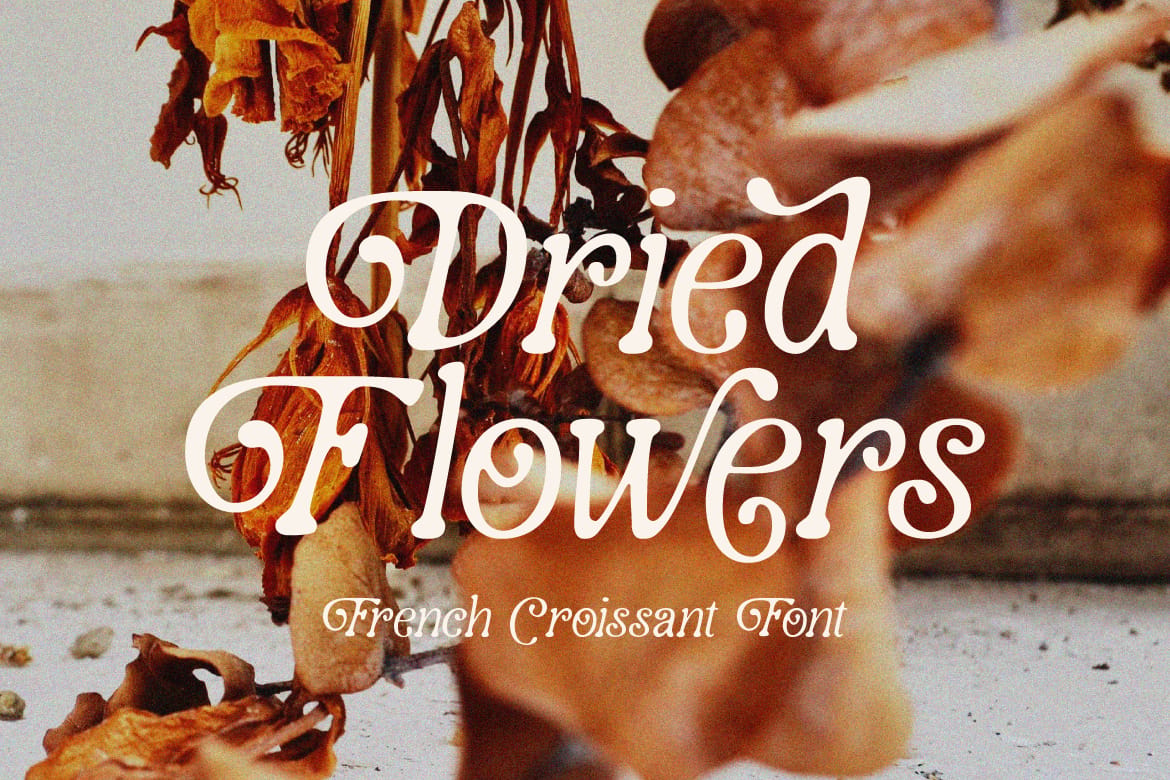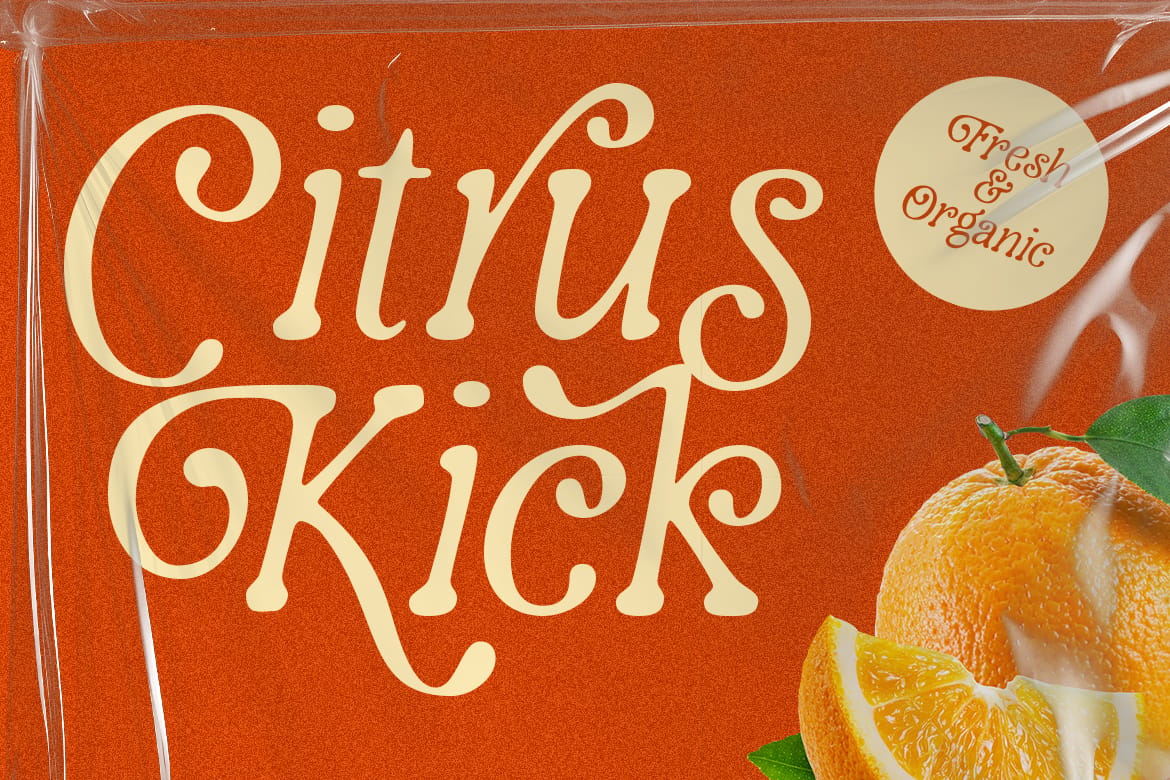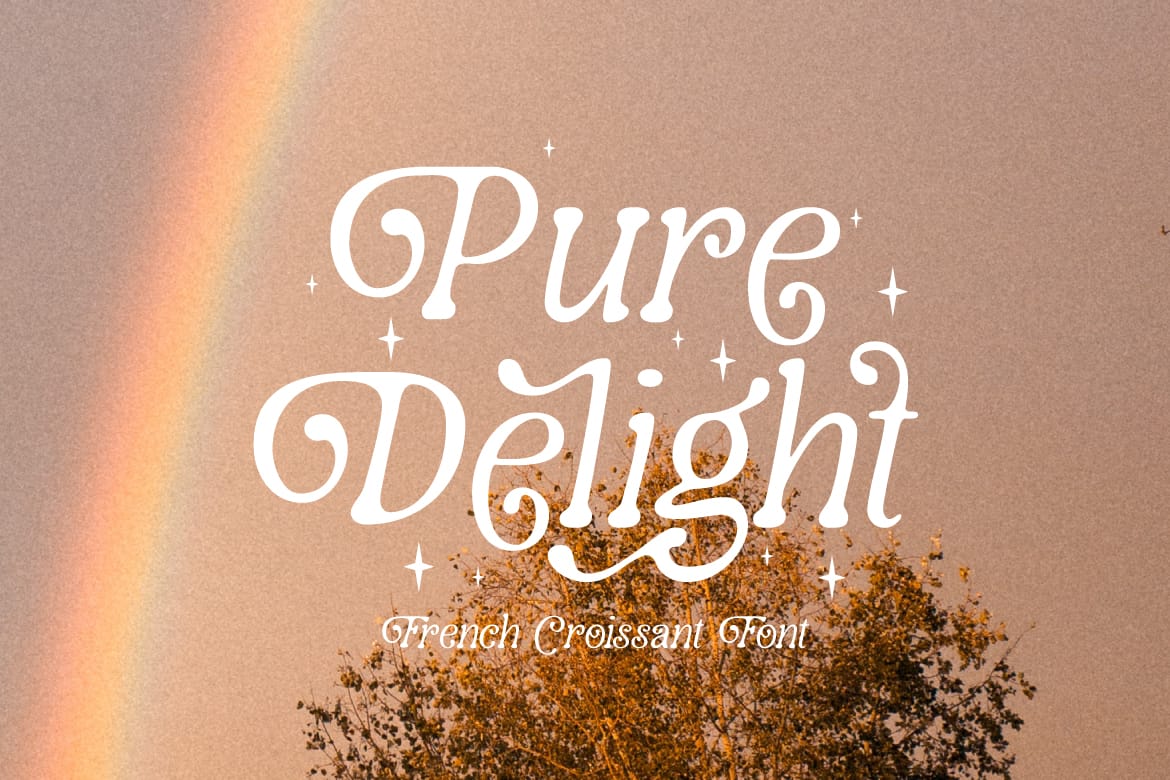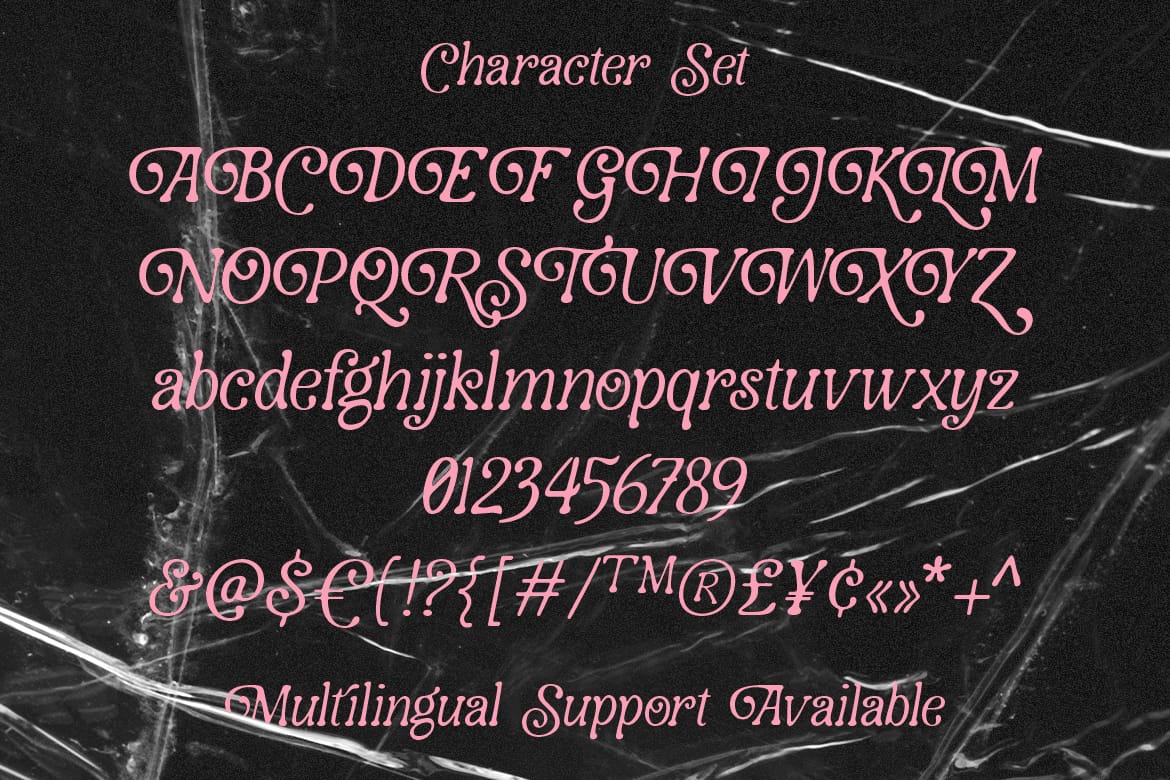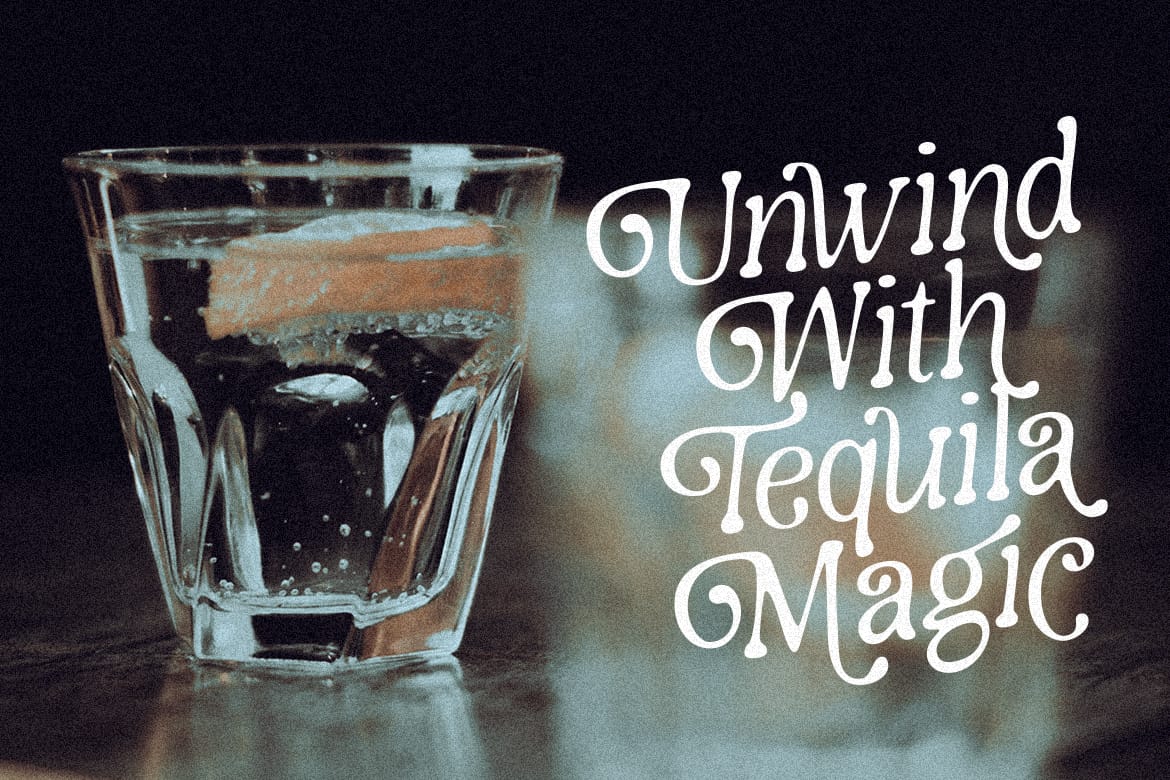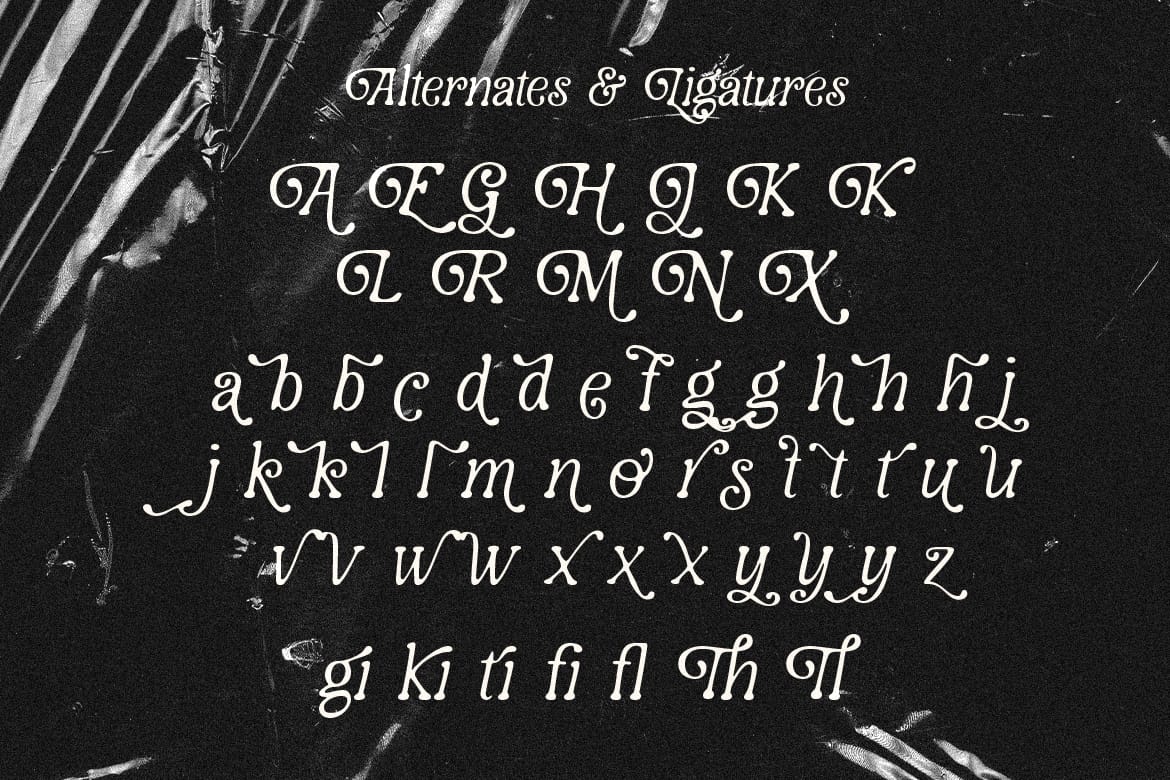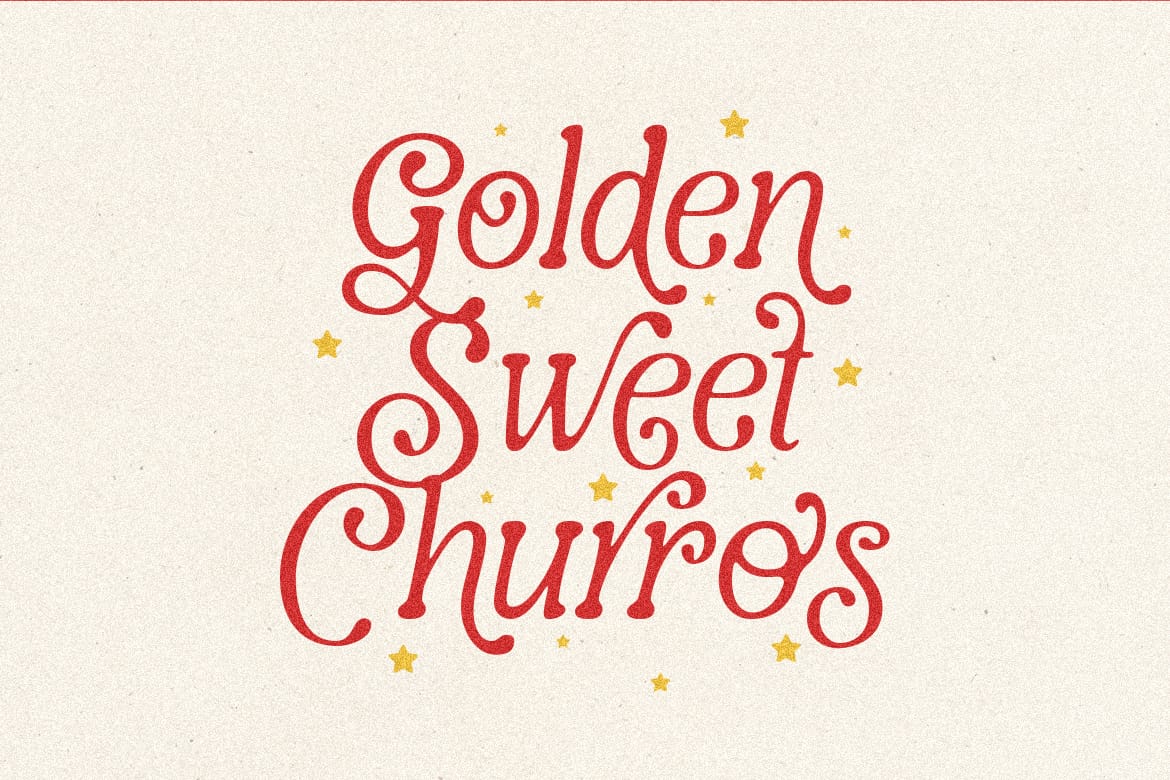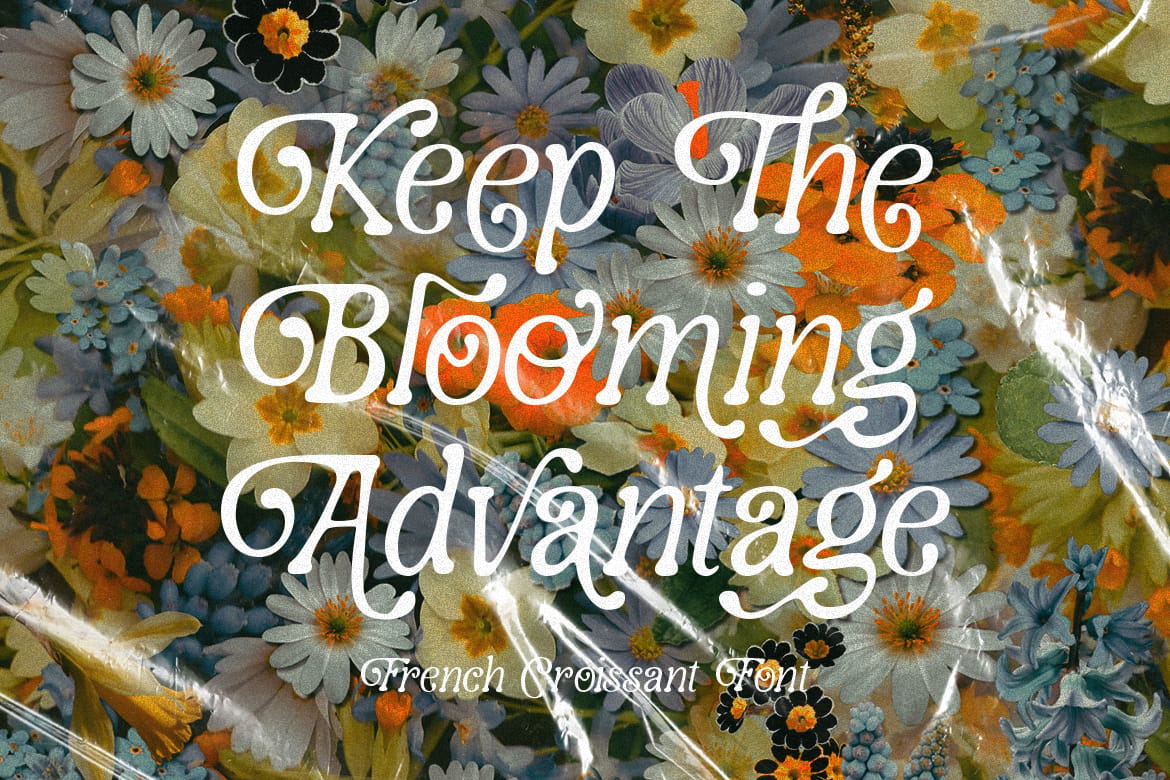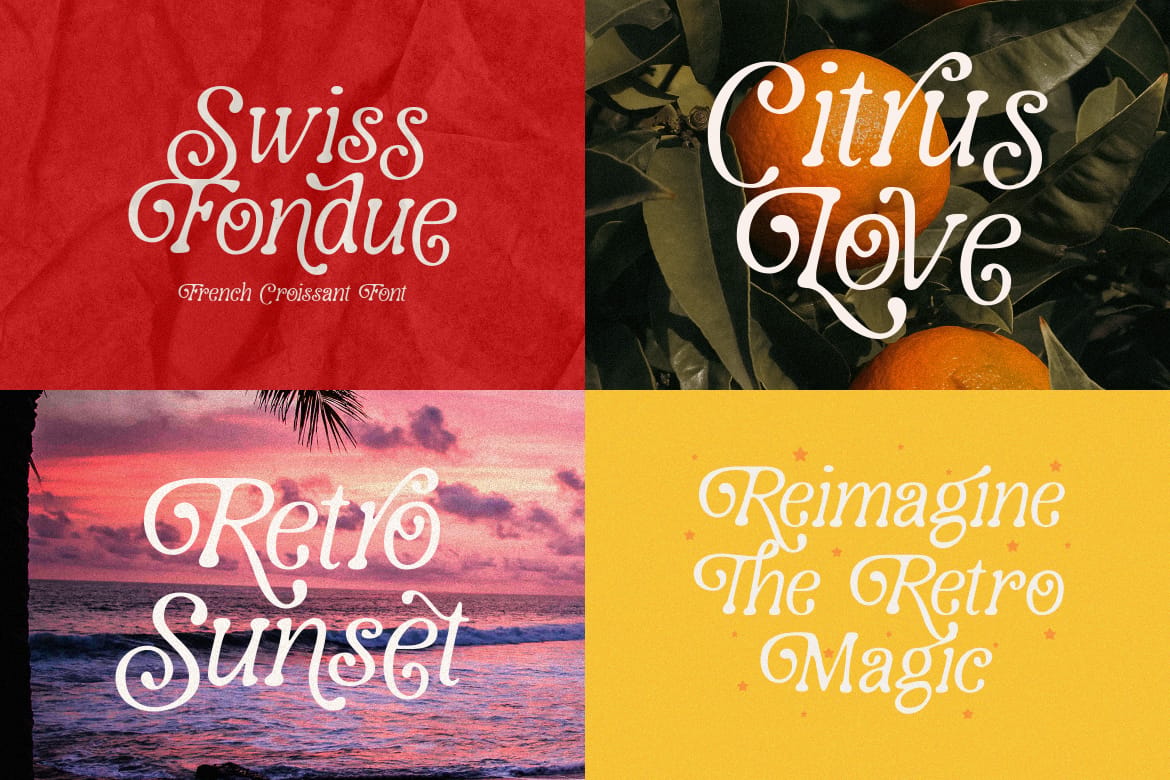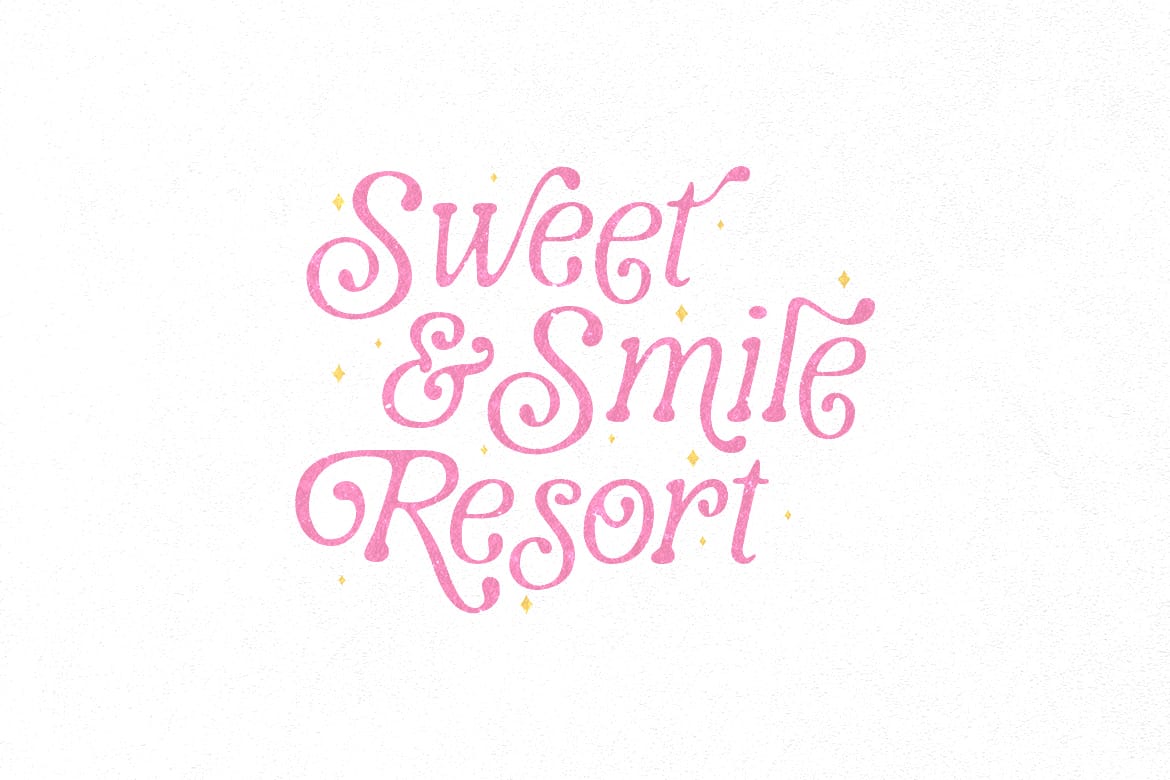
French Croissant Typeface
Presenting a new, very passionate typeface. This font is hand-drawn with an italic style and is characteristic of various types of letter styles. Very suitable for branding designs, logos, posters, merchandise and more. Features: Uppercase, Lowercase, Numeral, Punctuation, Multilingual, Alternates & Ligatures. Obtained file format: Otf, Ttf & Woff.
• Hand-drawn italic display font
• Alternates and ligatures included